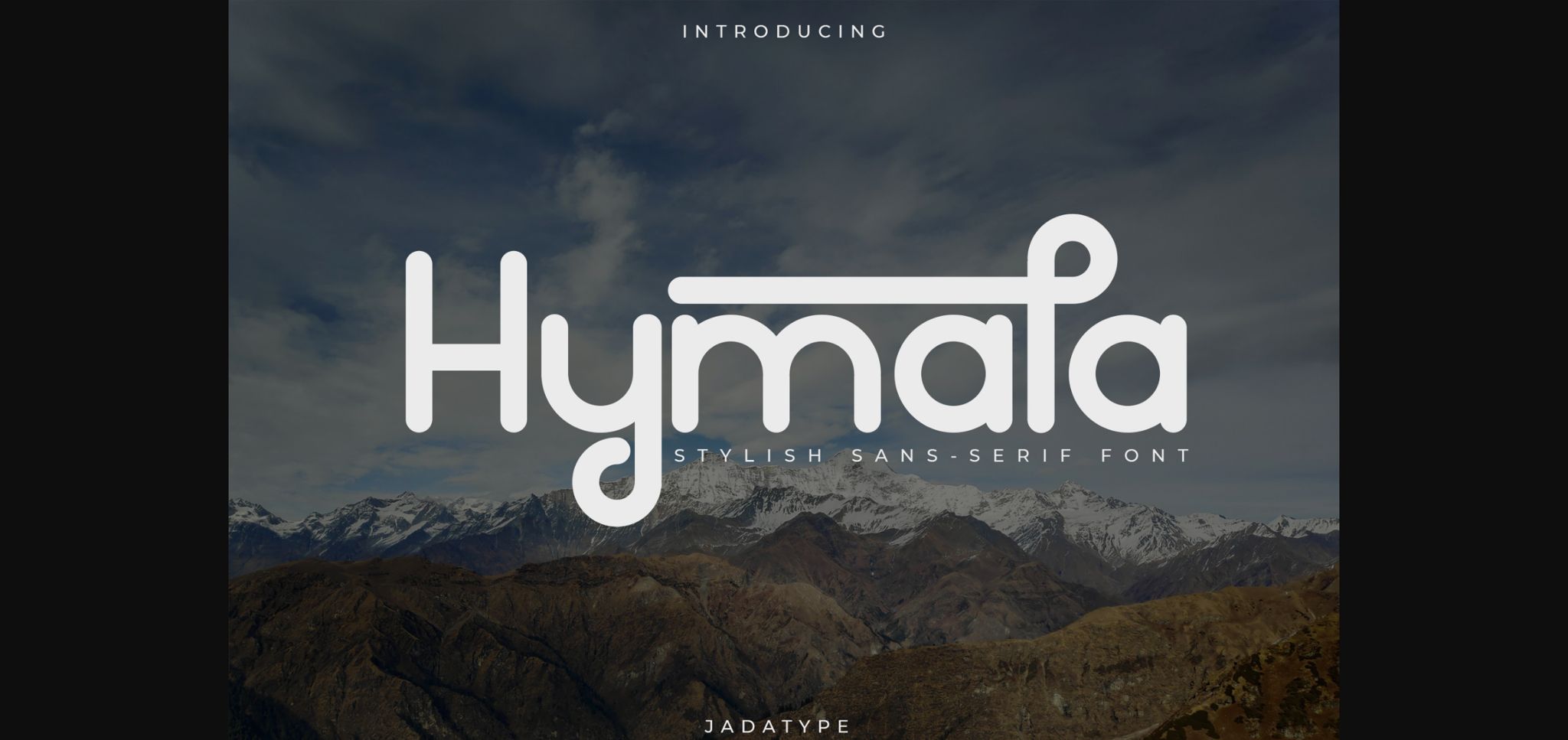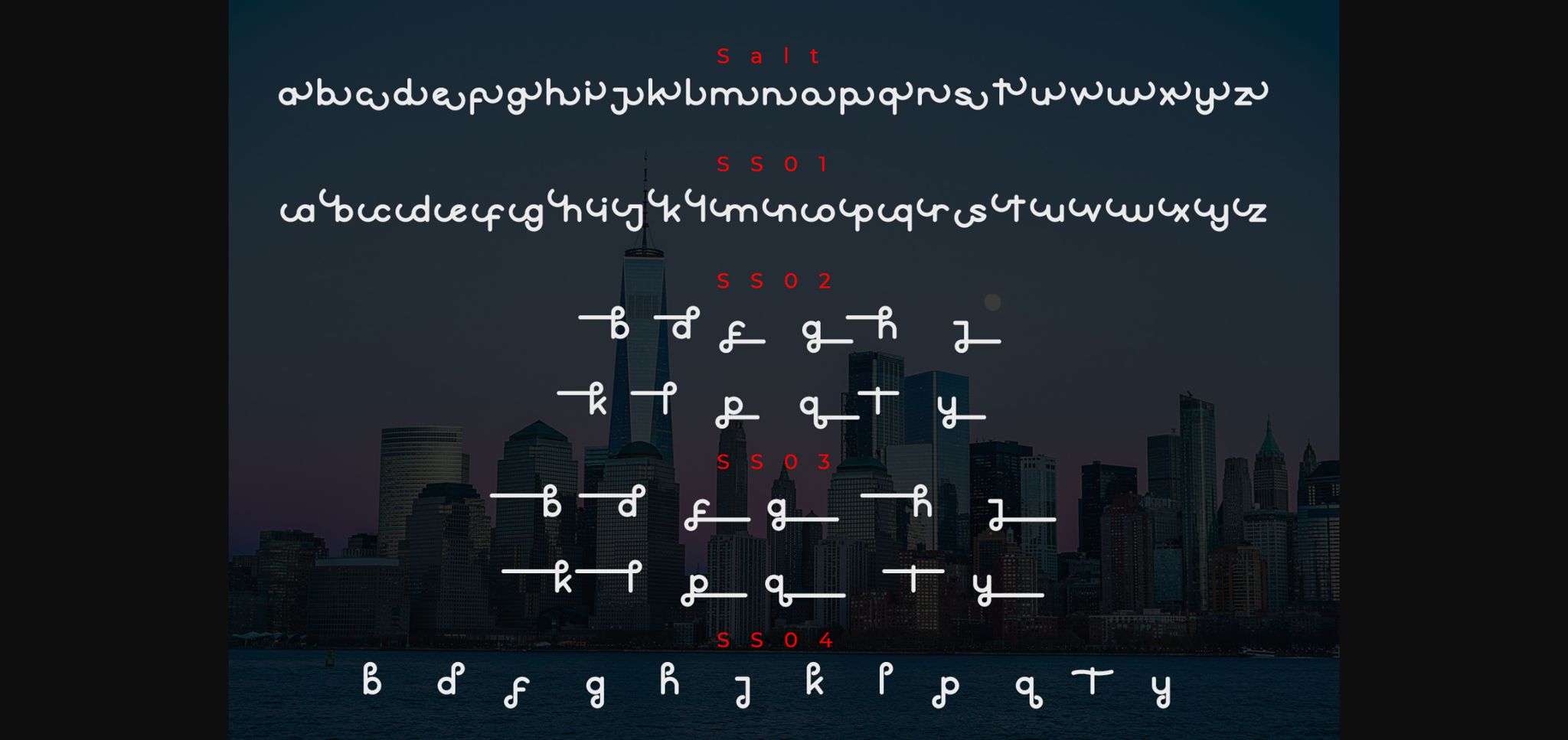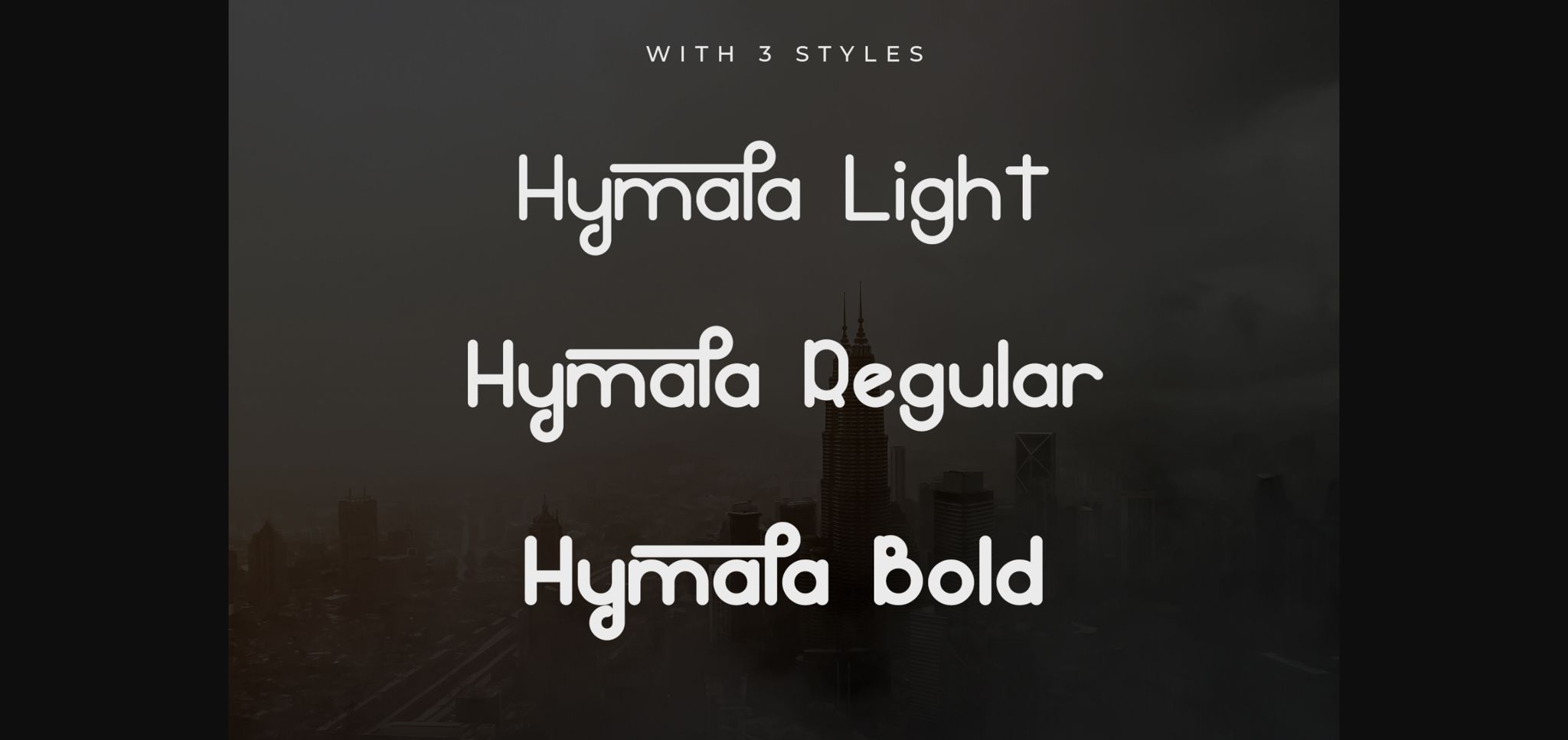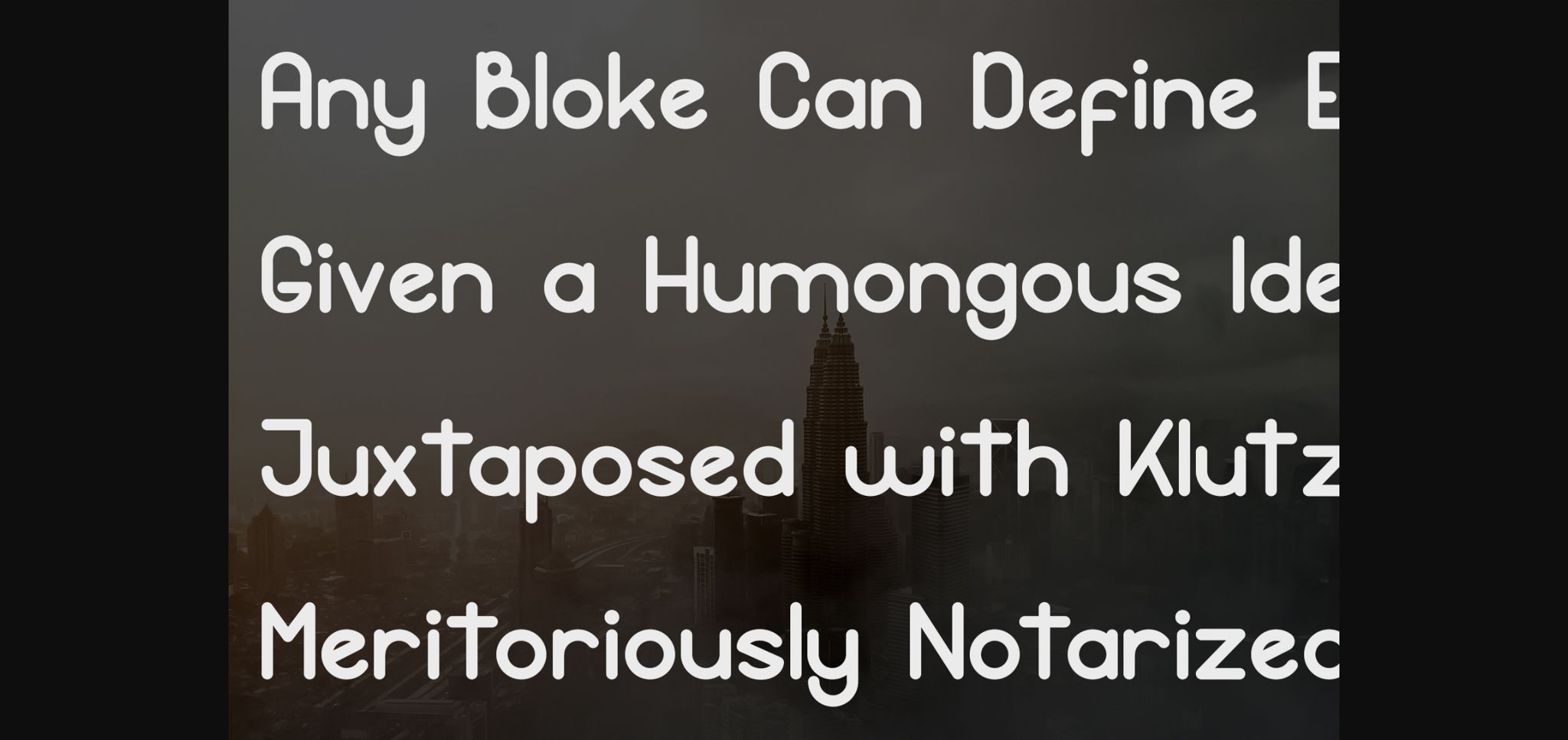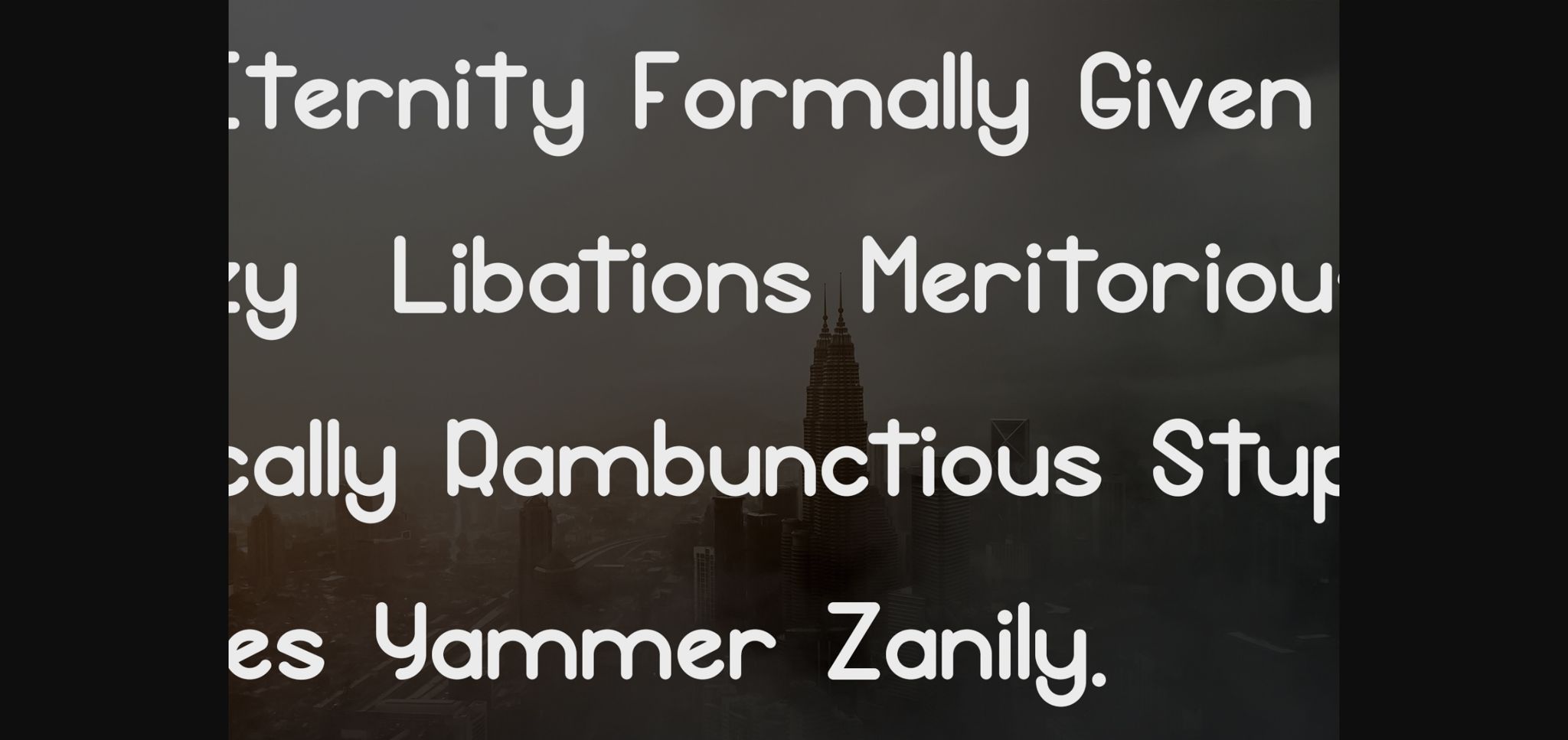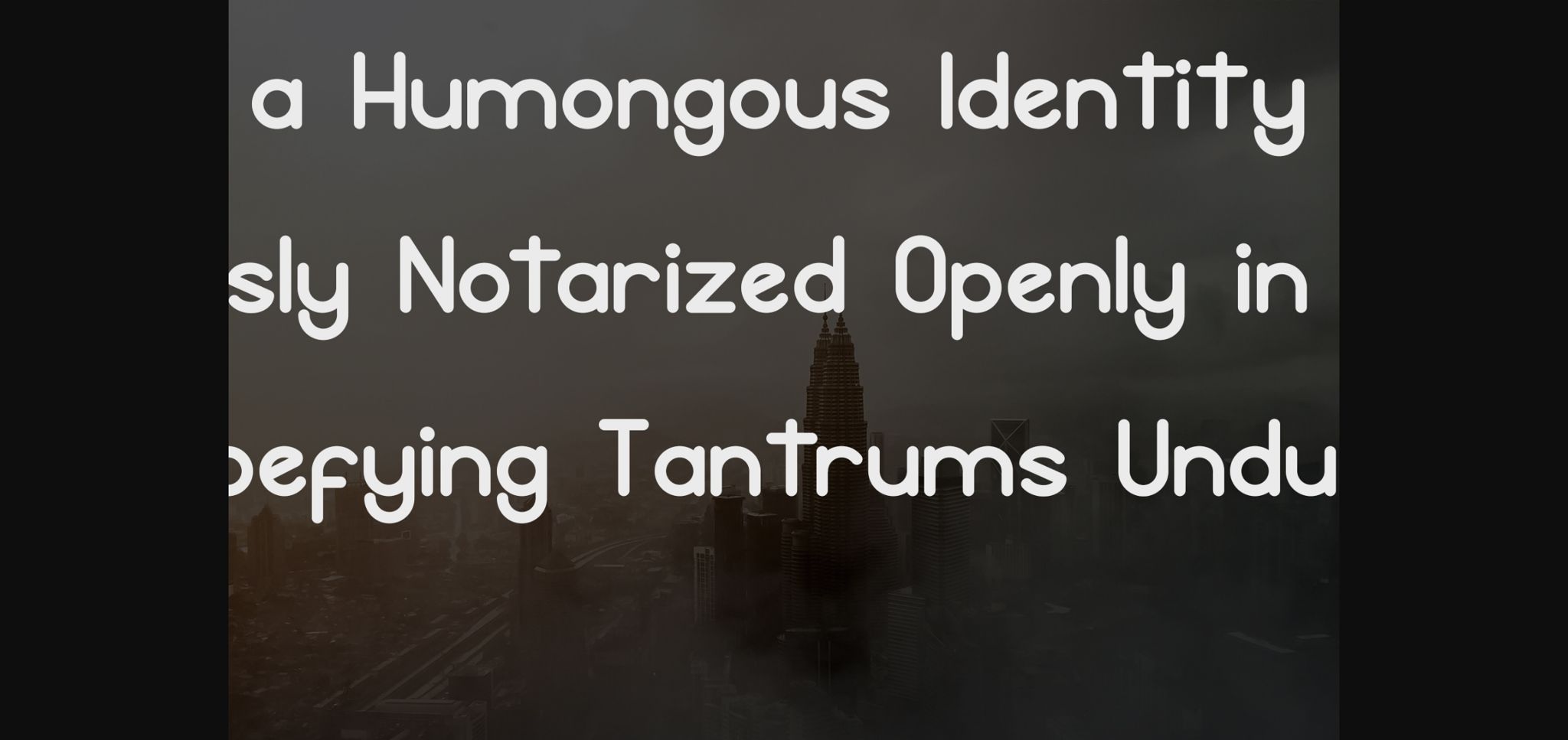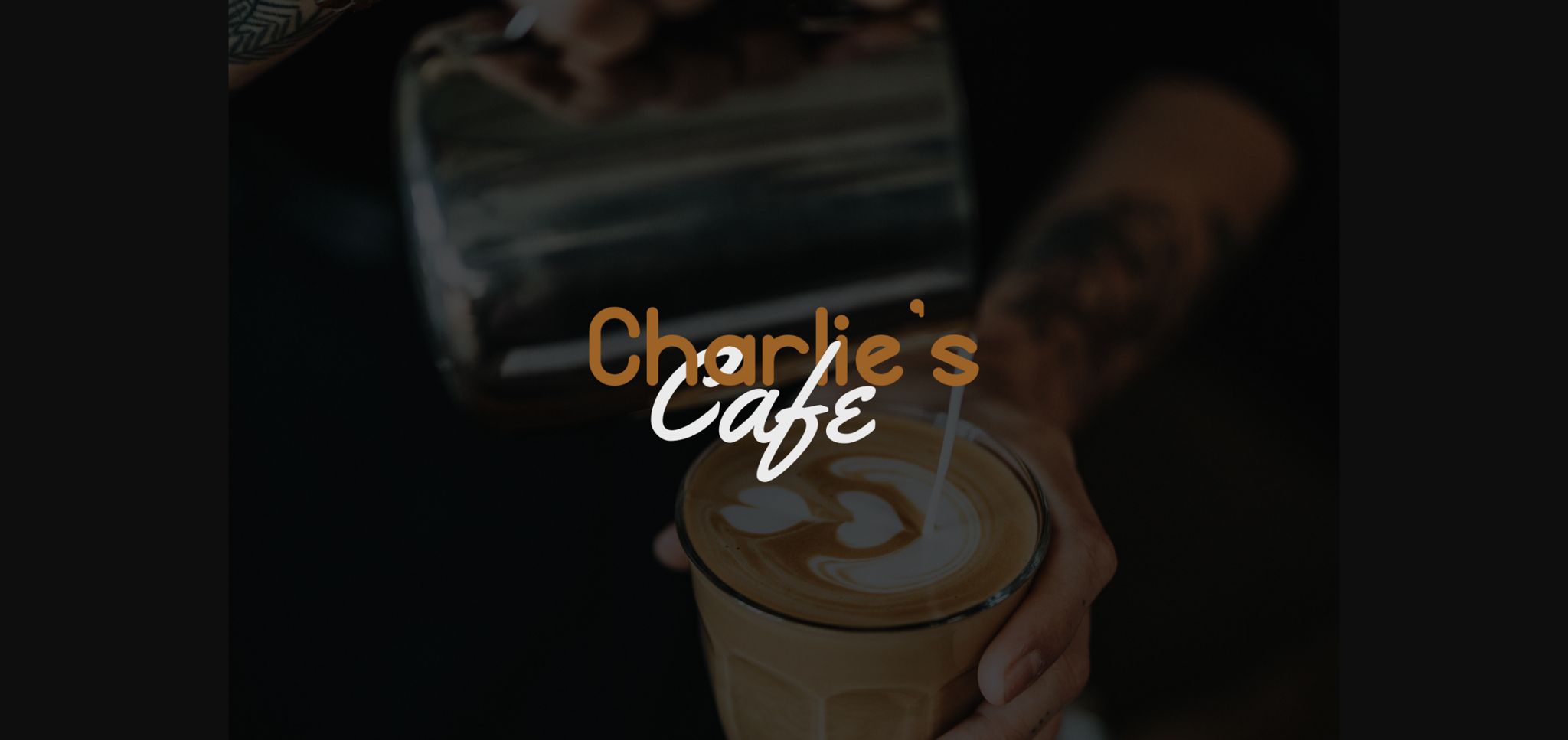
Hymala Font
About Hymala Font
Hymala is a stylish and thick lettered sans serif font. Whether you’re using it for crafting, digital designing, presentations or greeting cards making, it’s perfect!